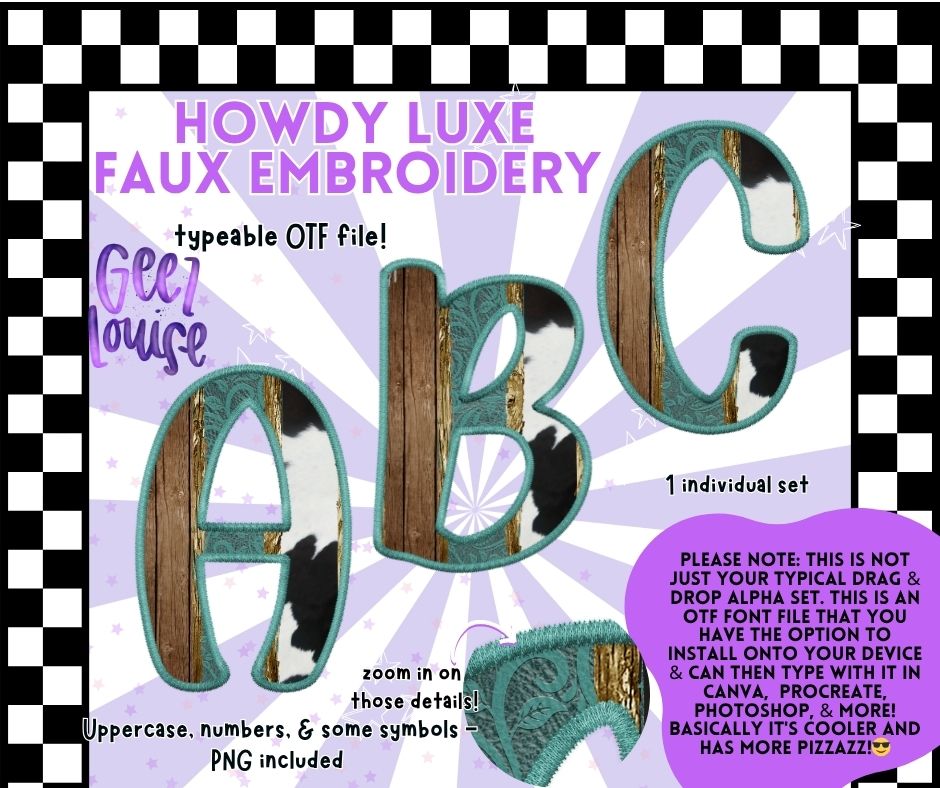
Bring the rodeo vibes to your designs with the Howdy Luxe Faux Embroidery Alpha! This bold western-style alpha features a luxe mix of teal tooled leather, wood grain texture, and cowhide pattern — all wrapped in a faux embroidery finish. Yeehaw meets boutique in this stylish font perfect for small-town girl designs, rodeo season merch, and rustic branding.
✔ Uppercase letters, numbers, & some symbols
✔ Faux embroidery edges for extra texture